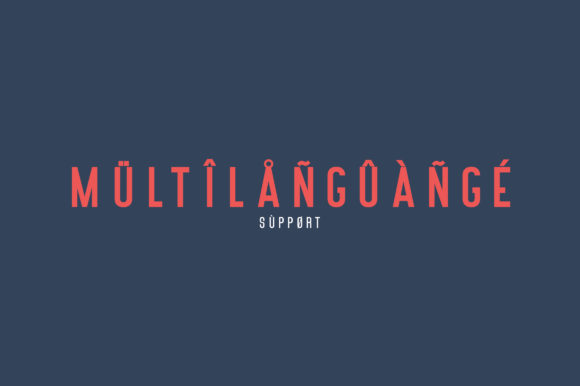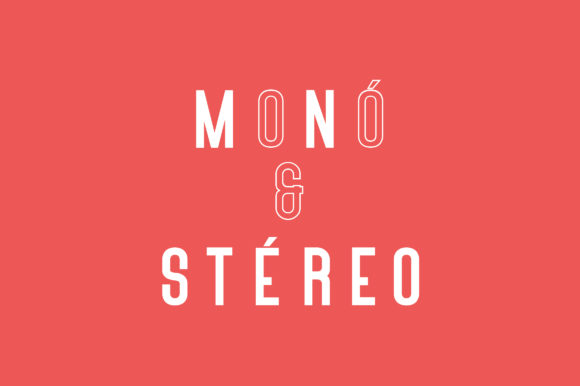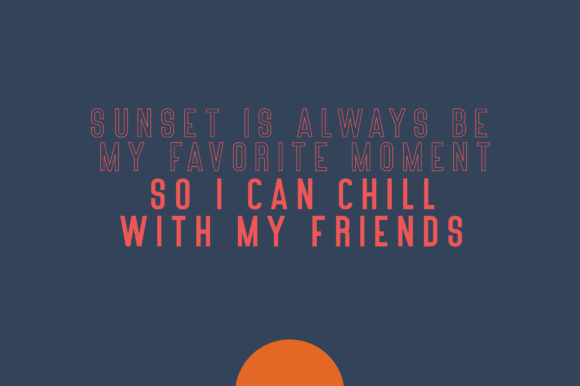
Introduction to Monerd Font
Monerd is a bold and solid sans serif font.
This font is perfectly suited for branding, logos, magazines, films, website, headlines, titles, captions, games, apps, posters, t-shirts and more .
Why Choose Monerd Font?
Monerd Font offers exceptional quality and versatility, making it a valuable addition to your design toolkit. Whether you’re creating for personal projects or commercial use, Monerd Font delivers professional results.